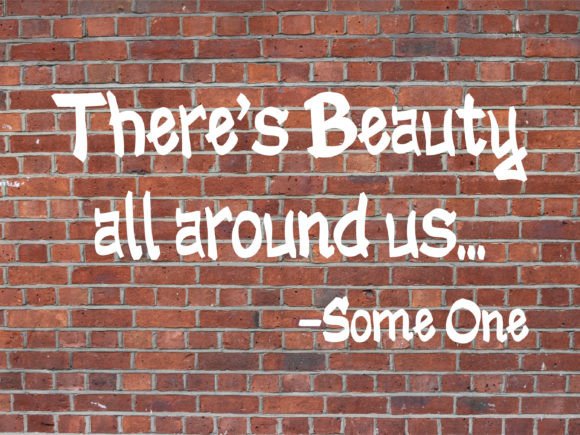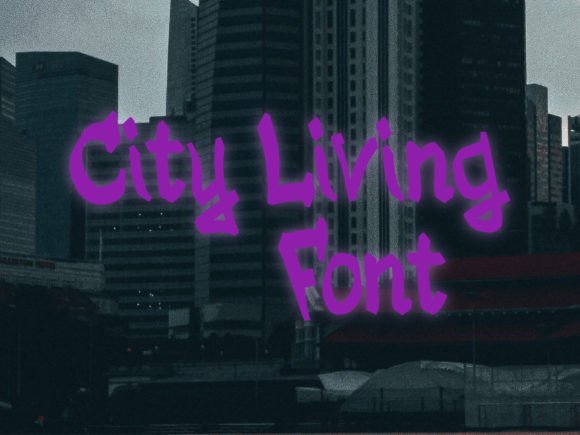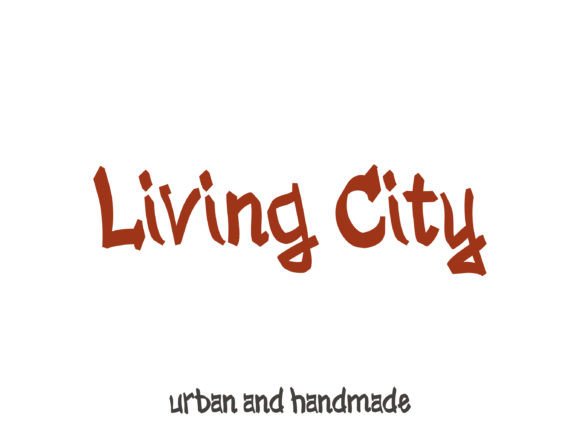
Introduction to Living City Font
Living City is a modern, minimalist graffiti font.
It’s handmade and brings an urban feel into any project Use it for your logos, posters, movie titles, social media, flyers and more.
Living City Font offers exceptional quality and versatility, making it a valuable addition to your design toolkit. Whether you’re creating for personal projects or commercial use, Living City Font delivers professional results.